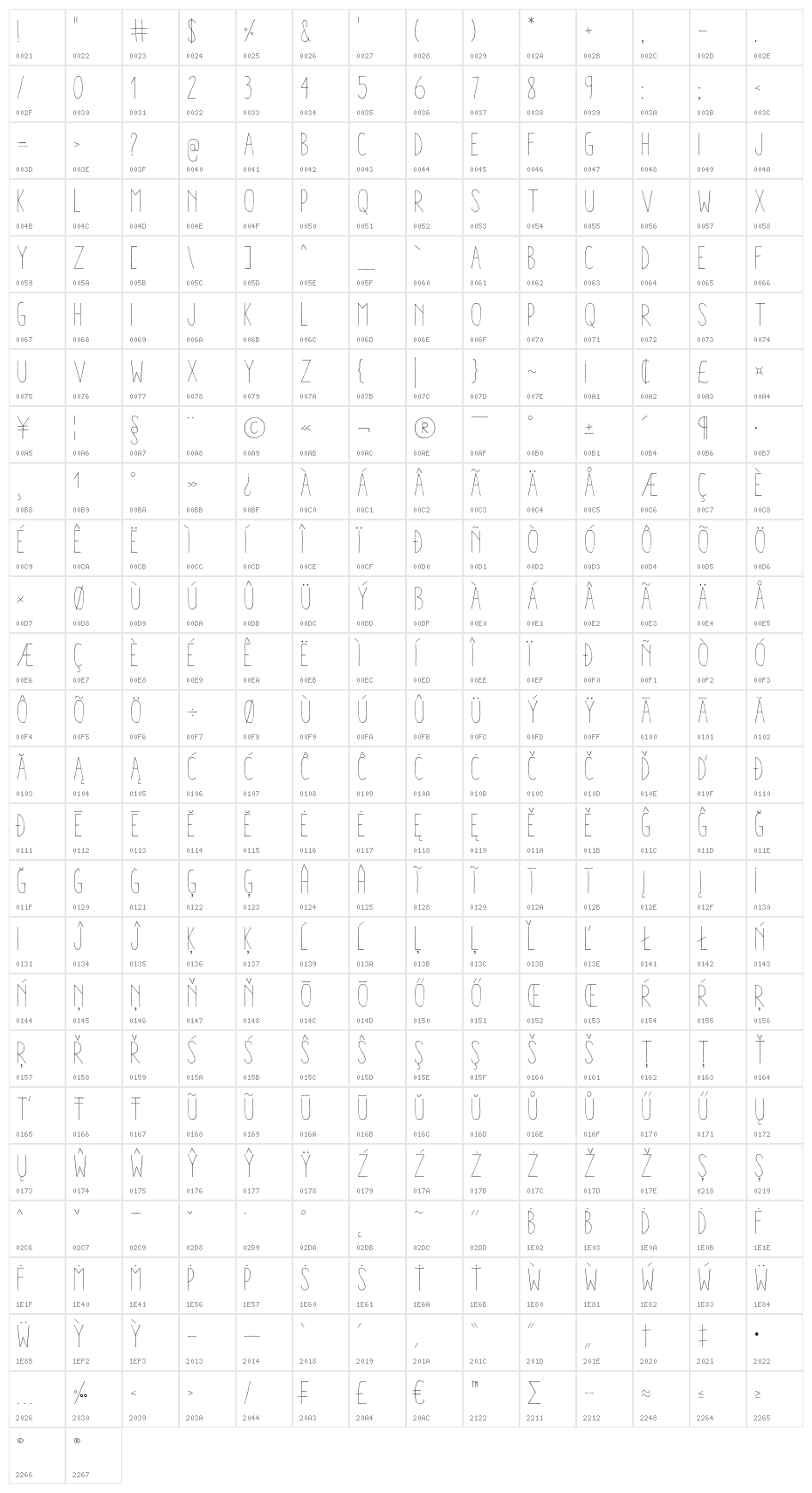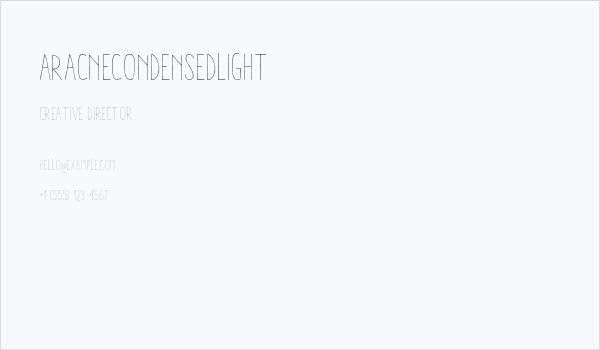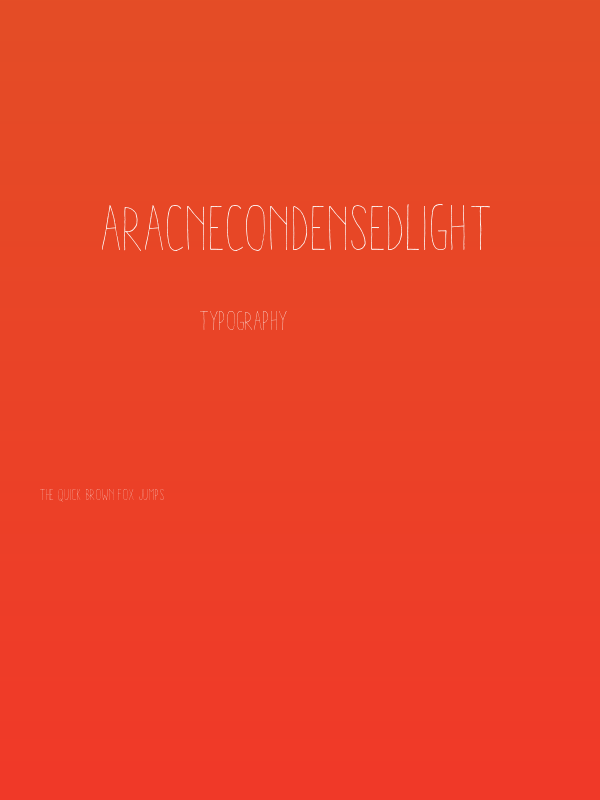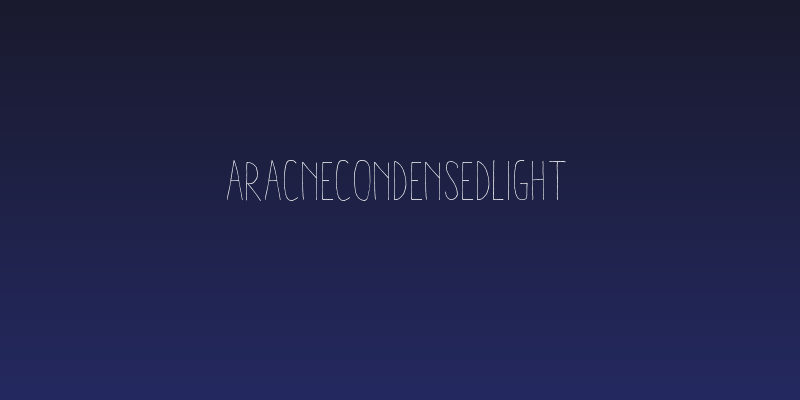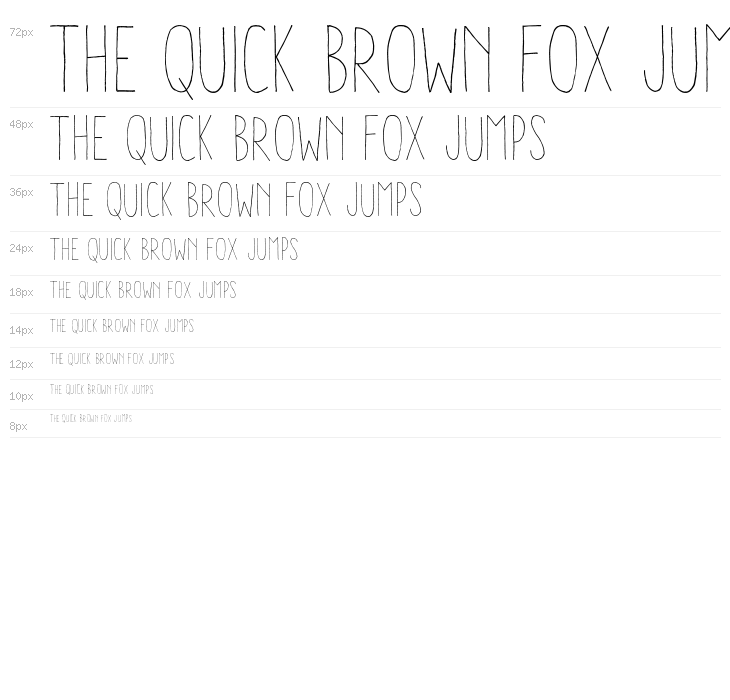
AracneCondensedLight Font
AracneCondensedLight Description
This font features a delicate and slender design, characterized by its tall and narrow letterforms. The strokes are thin and consistent, giving it a light and airy appearance. The uppercase and lowercase letters maintain a uniform height, contributing to its condensed style. The numerals and special characters are crafted with the same thin strokes, ensuring a cohesive look across all characters. This font's minimalistic and elegant design makes it suitable for projects that require a subtle yet sophisticated touch.
| Proposed Projects | Ideal for fashion magazines, elegant invitations, minimalist branding, and modern web design. |